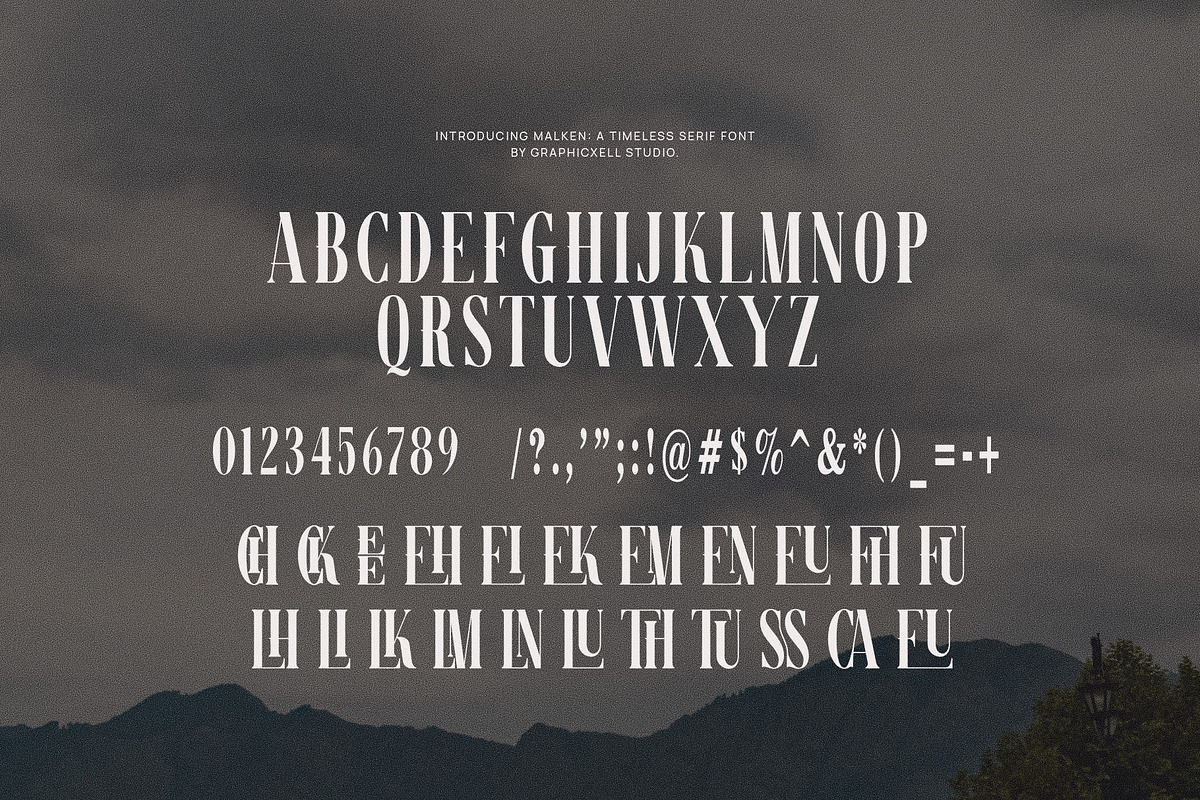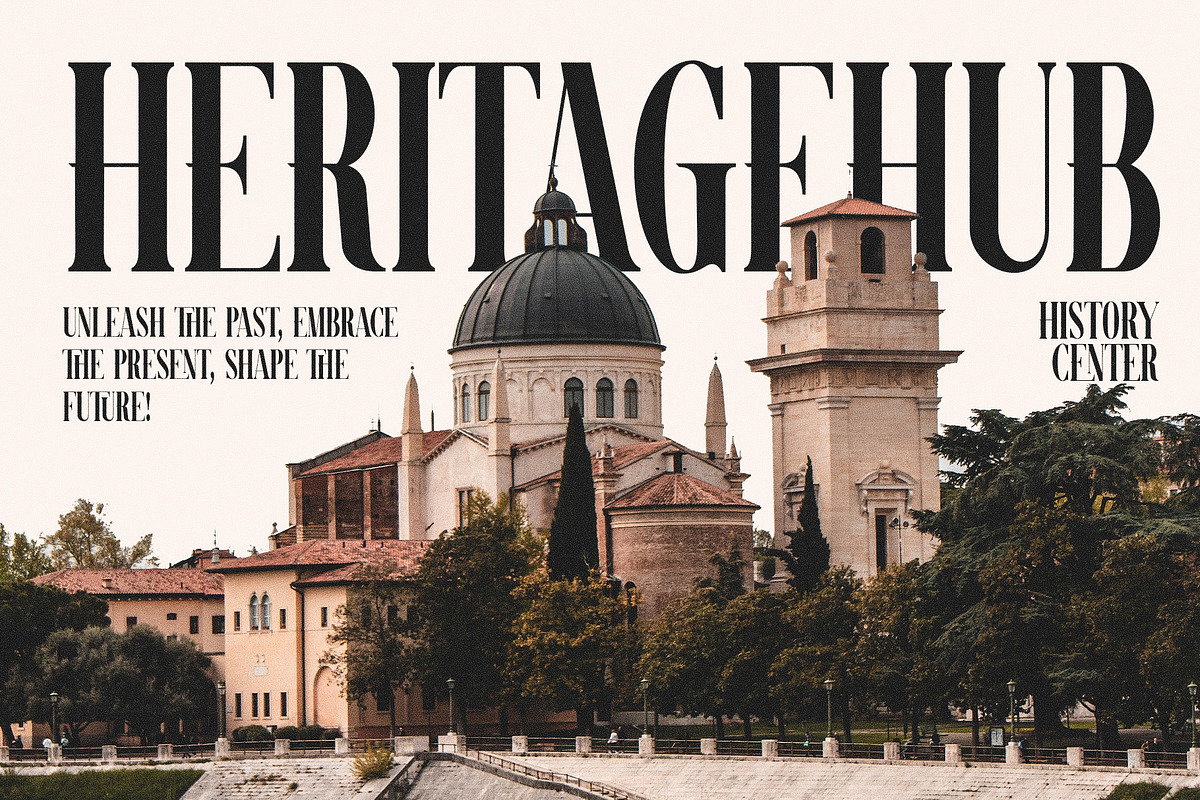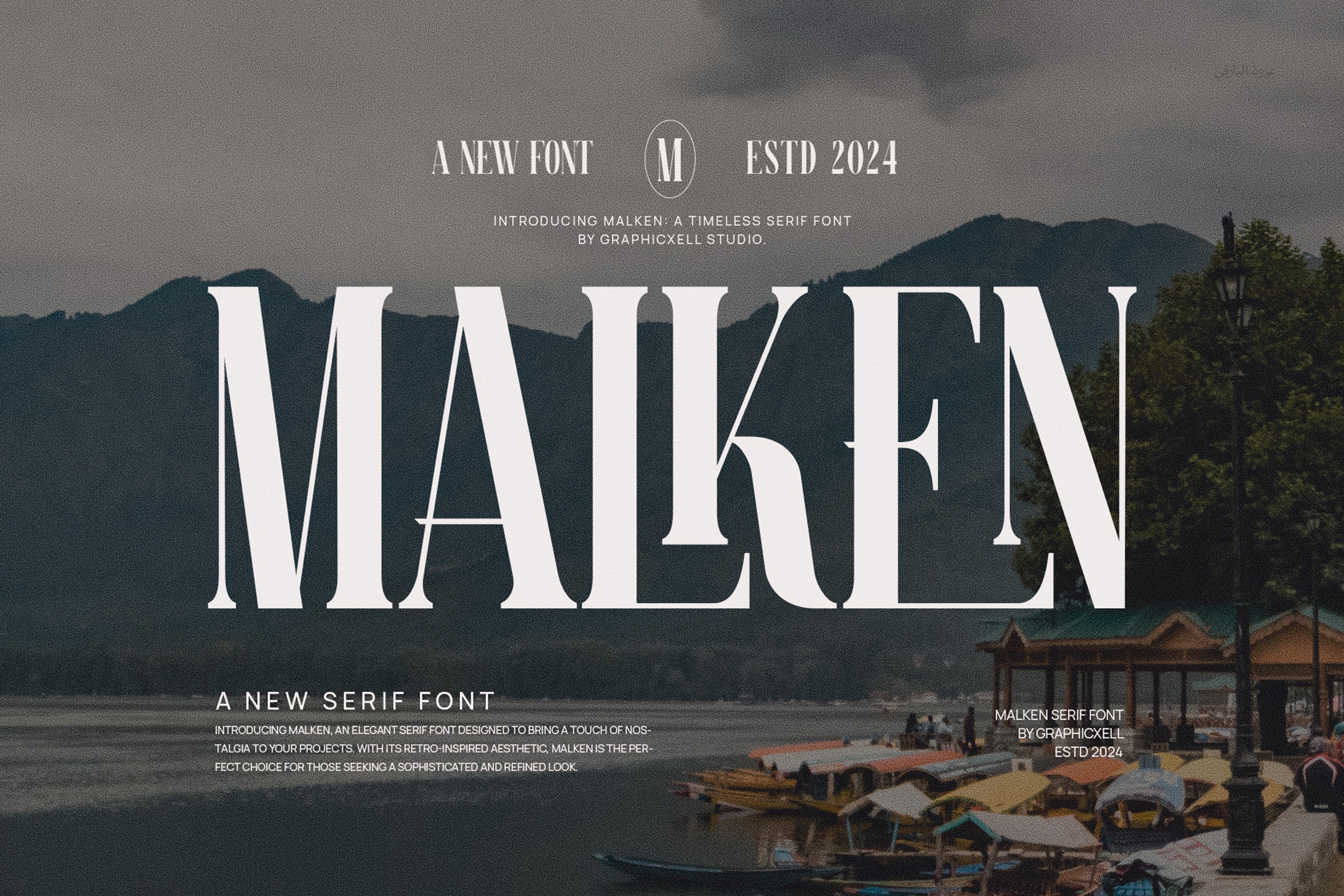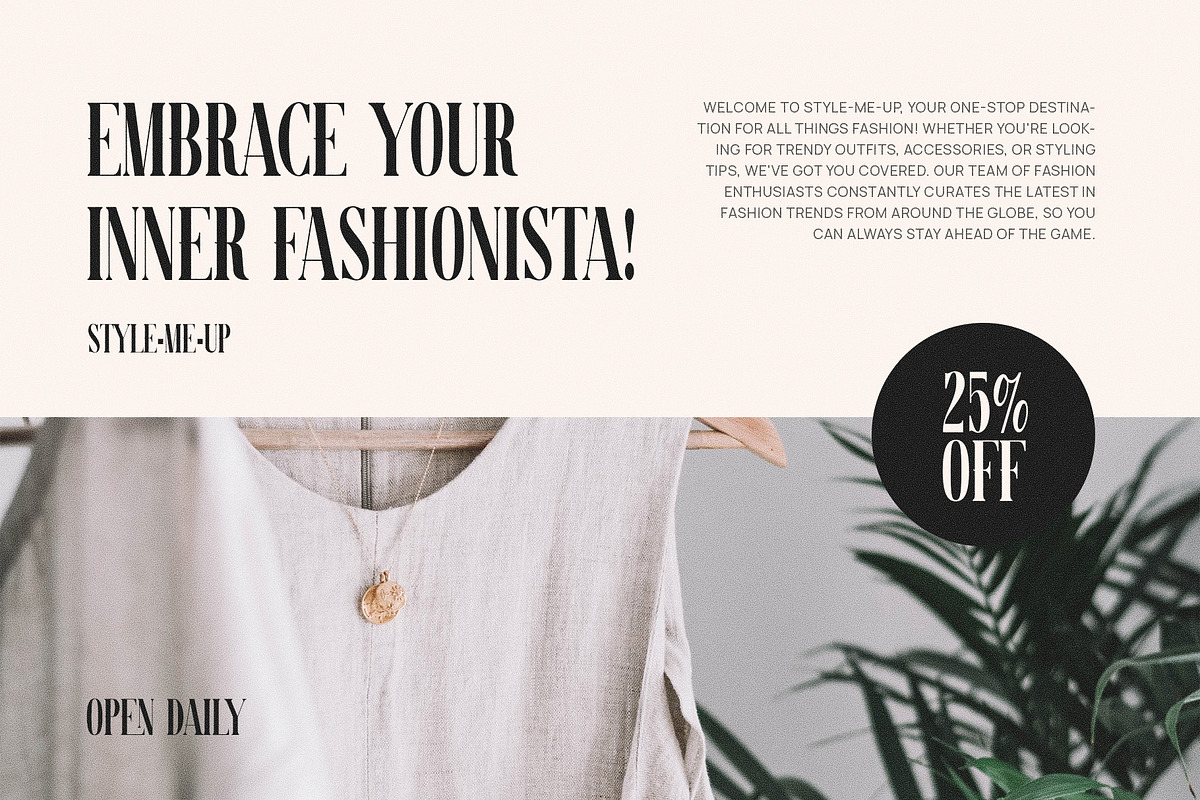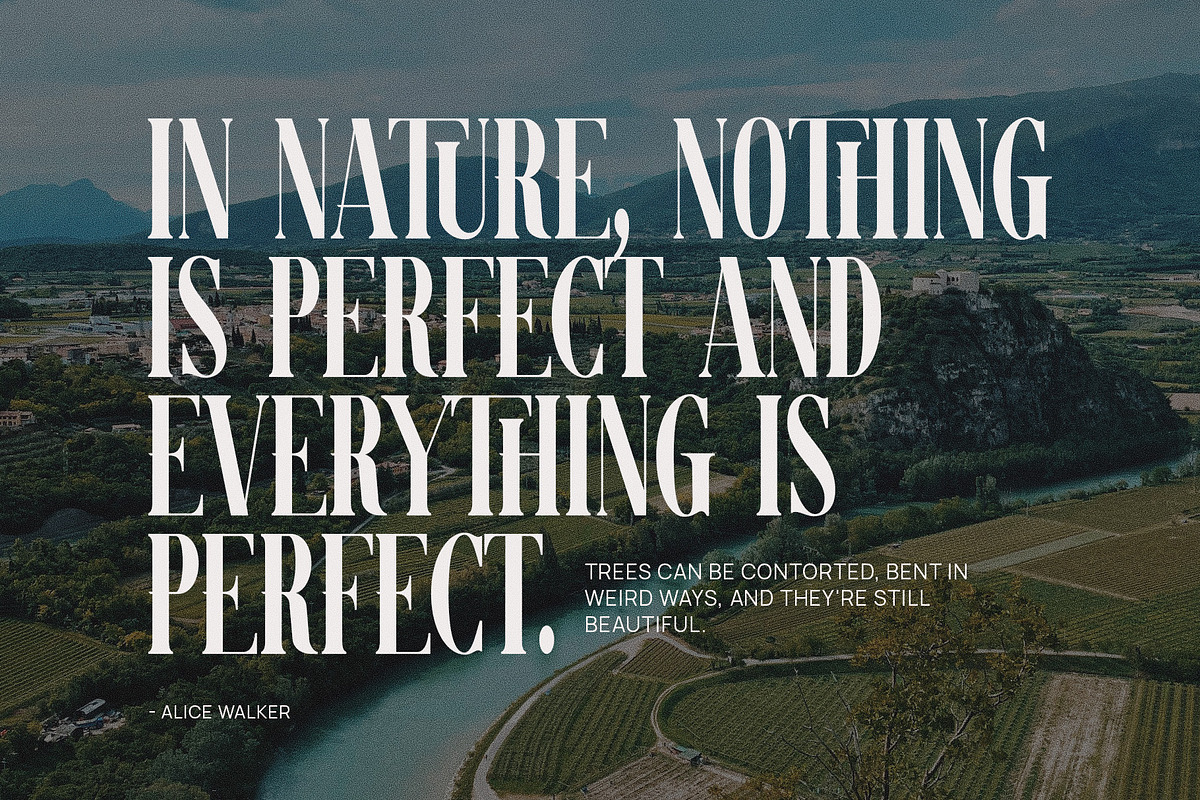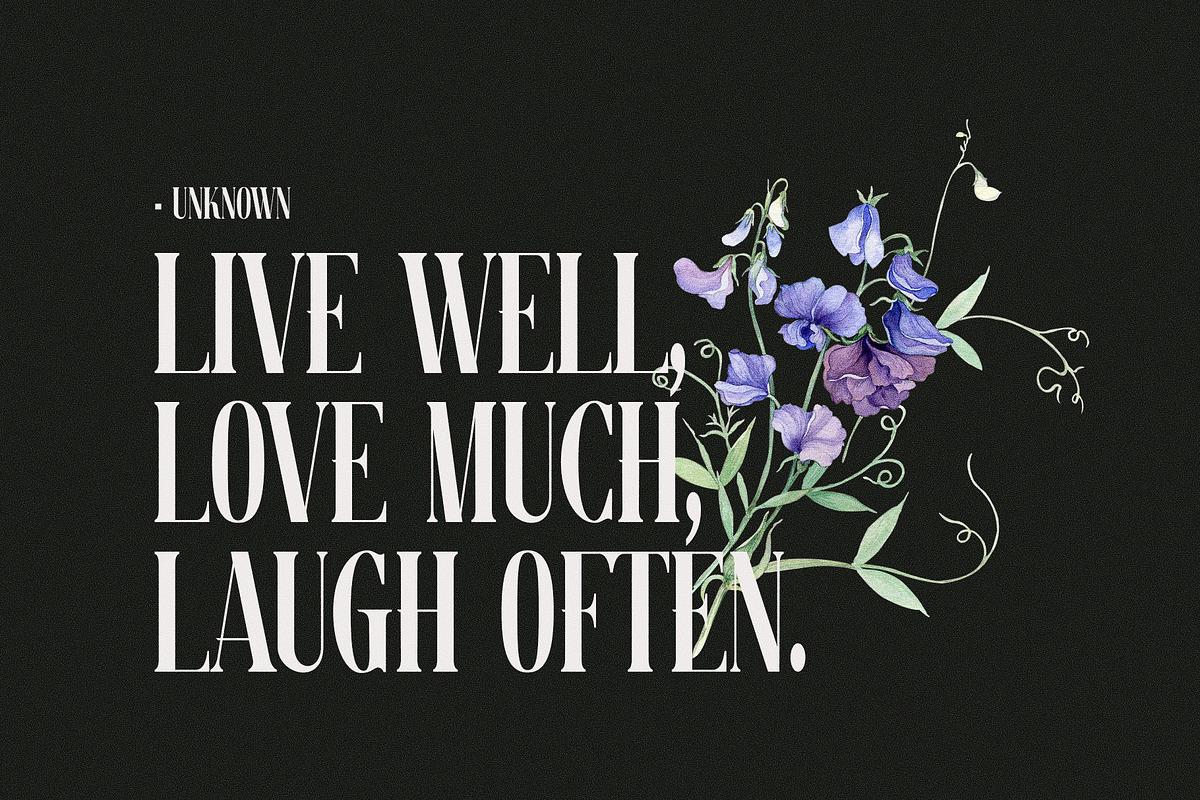
Malken Elegant Ligature Serif Font
Malken Elegant Ligature Serif Font is a new serif font inspired by a retro font style. Every part of this font offers a nostalgic touch to the design. The slightly irregular shape is actually its own attraction. So, you will not see a symmetry and balance here. What makes it interesting is how the lines are linked perfectly between the thick and thin parts. Besides, the rigid and flexible lines are blended excellently. With an aesthetic appeal, the Malken Elegant Ligature Serif Font is designed for graphic designers, from beginners to professionals. Whether you are working on a stationery, invitation, watermark, photography, label, product design, product packaging, ad, or any other design project, this serif font will be a great choice. It doesn’t only combine a sophisticated look and readability, but also brings a timeless style. So, purchasing the Malken Elegant Ligature Serif Font can be a right decision.